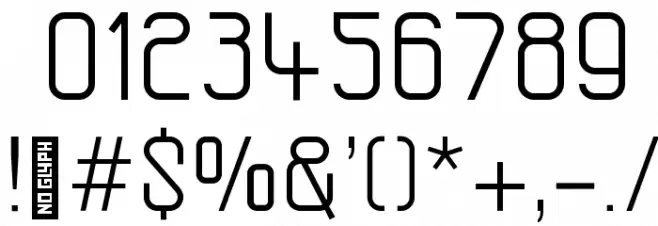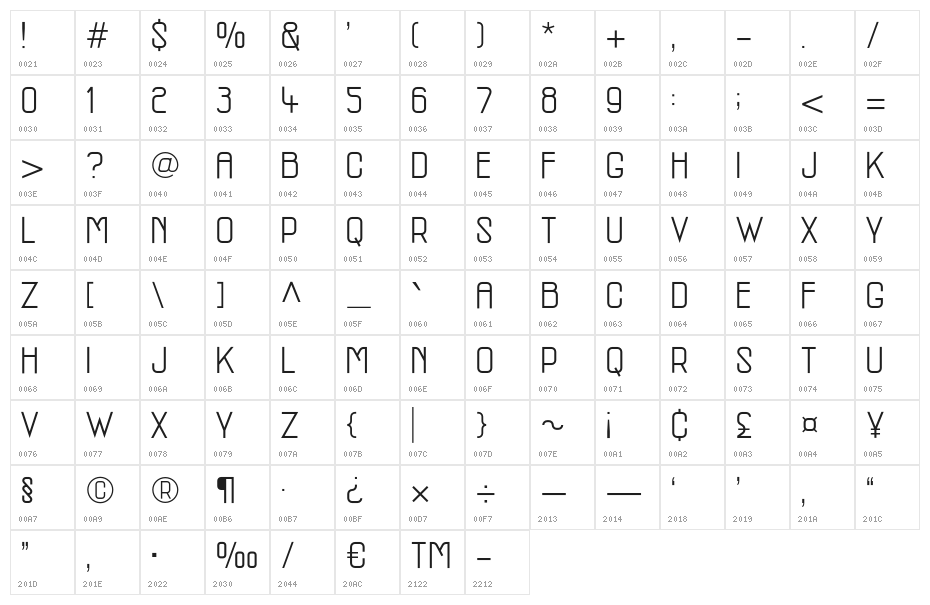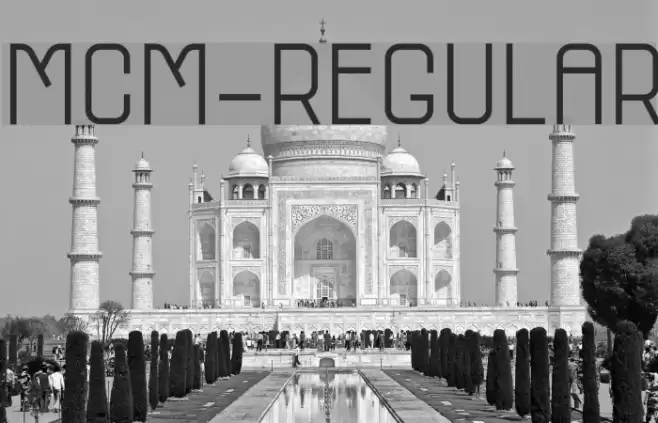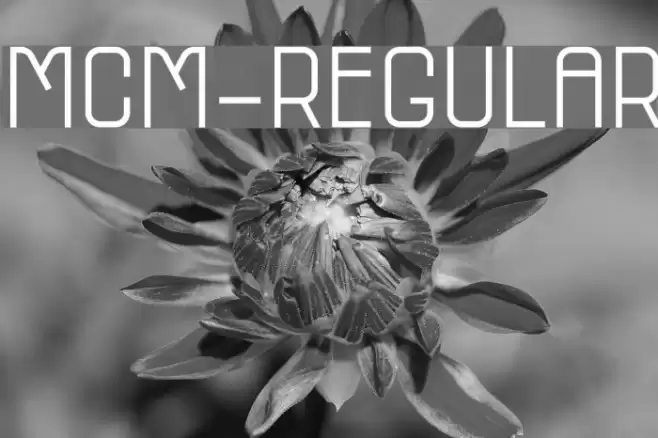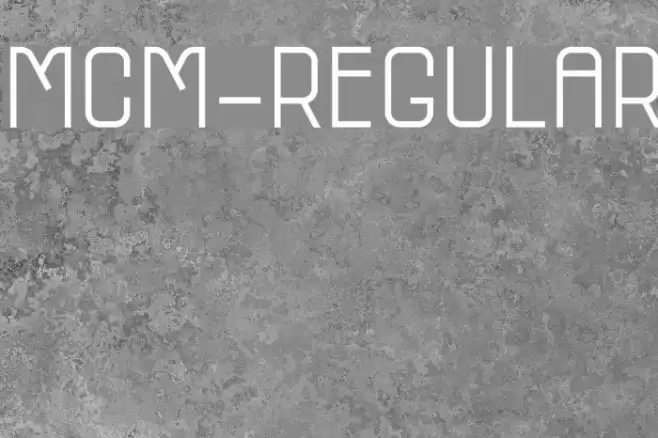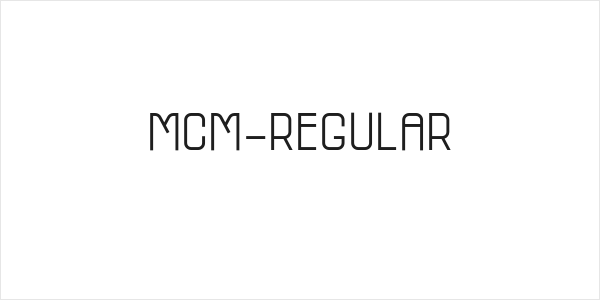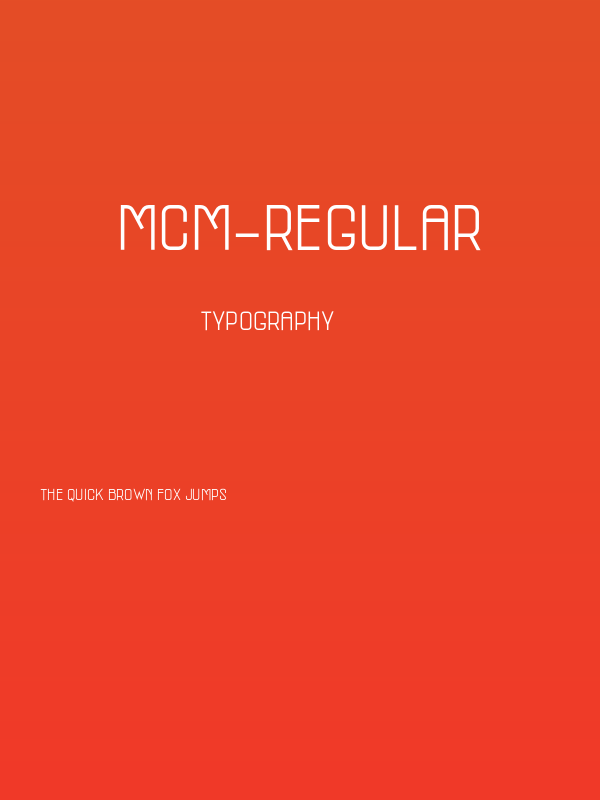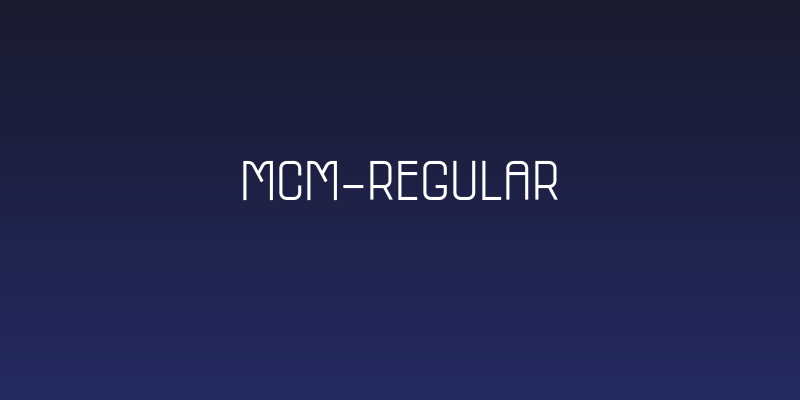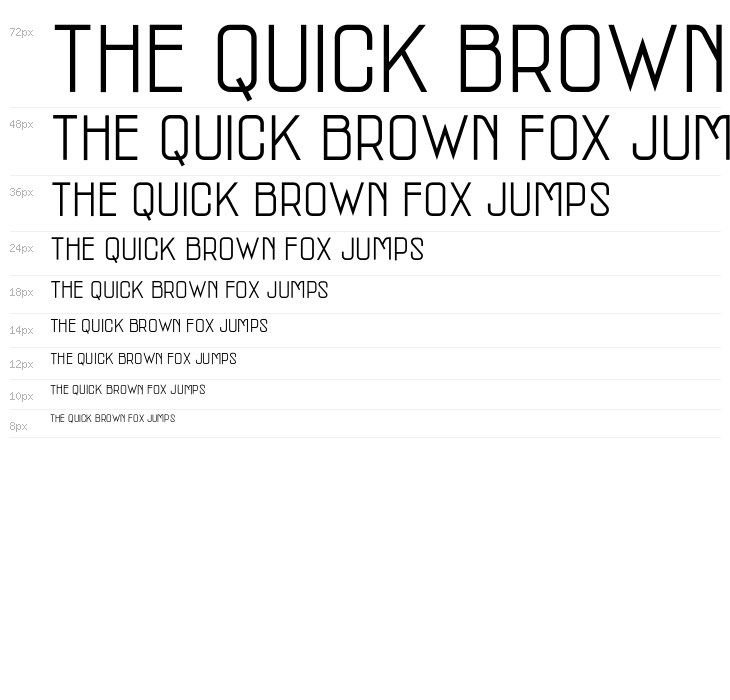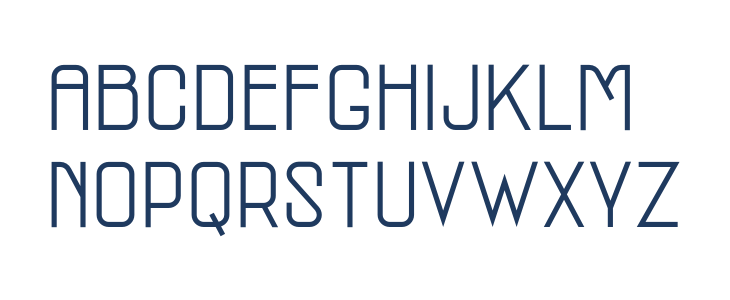
MCM-Regular Font
MCM-Regular Description
This font features a clean, geometric design with a modern aesthetic. The characters are constructed with uniform stroke widths, giving it a monoline appearance. The uppercase letters are tall and narrow, while the lowercase letters maintain a consistent height, creating a harmonious look. The numerals and special characters follow the same design principles, ensuring a cohesive overall style. The font's simplicity and clarity make it highly legible, suitable for various design applications.
| Proposed Projects | Ideal for branding, signage, digital interfaces, and editorial design where clarity and modernity are desired. |